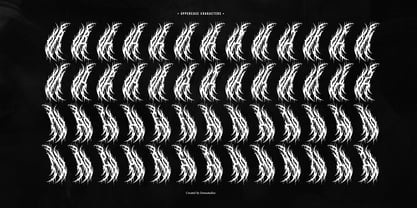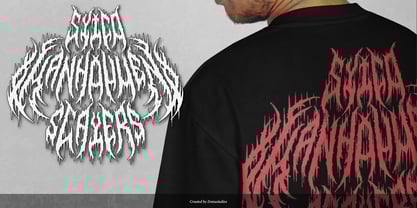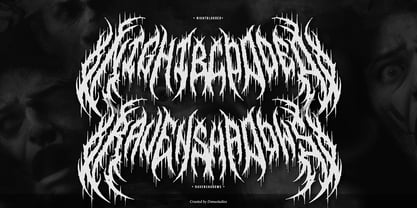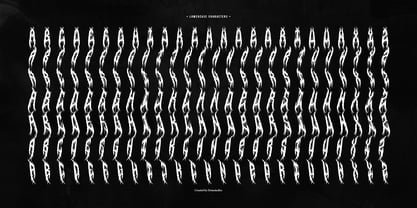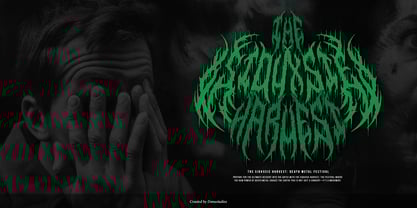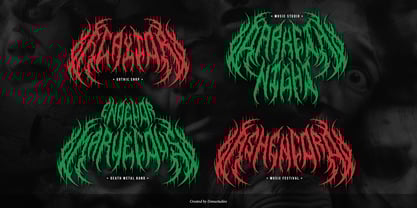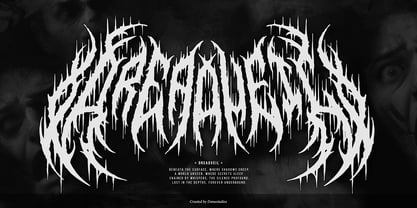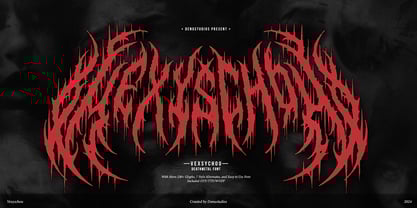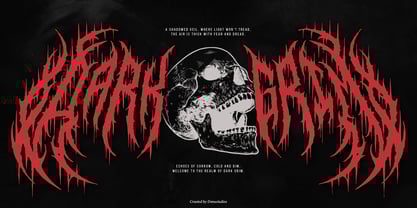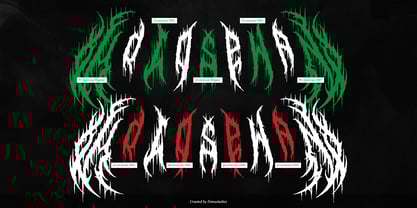
Vexyschou
by Denustudio
The Vexyschou Font Family was designed by Dede Nugraha and published by Denustudio. Vexyschou contains 1 styles.
Vexyschou | Death Metal Typeface, from Denustudios, suitable for any projects such as: logos, branding projects, homeware designs, product packaging, mugs, quotes, posters, shopping bags, t-shirts, book covers, name card, invitation cards, greeting cards, label, photography, watermark, special events, and all your other lovely projects that need a Death Metal Typeface taste.
Designers: Dede Nugraha
Publisher: Denustudio
Foundry: Denustudio